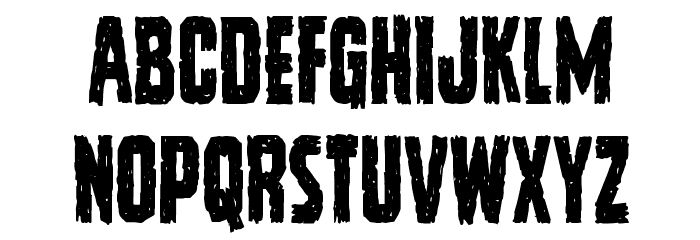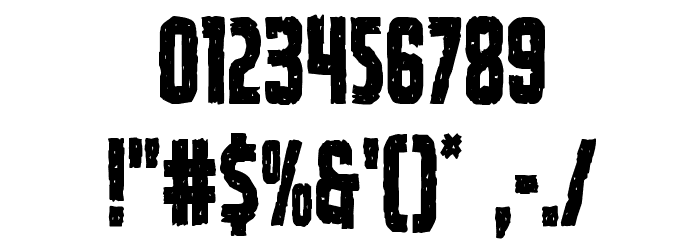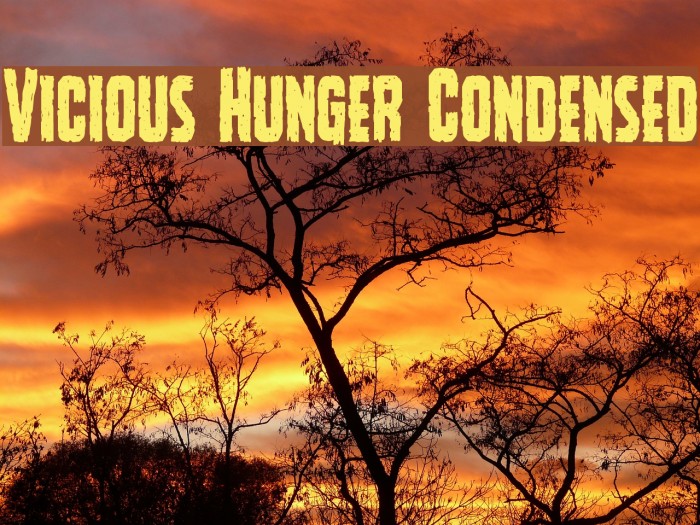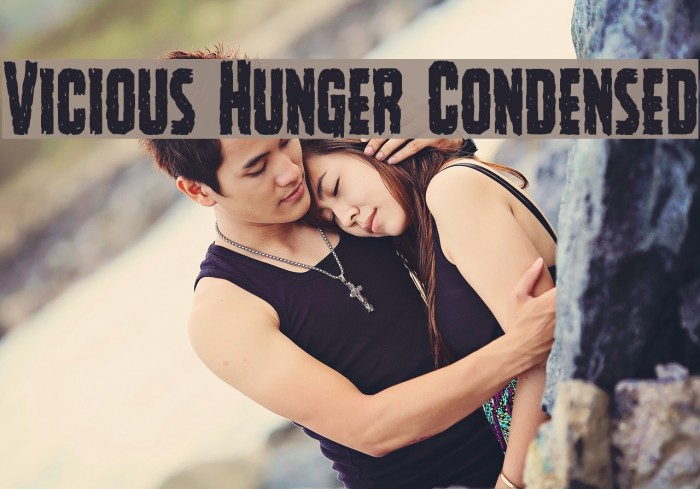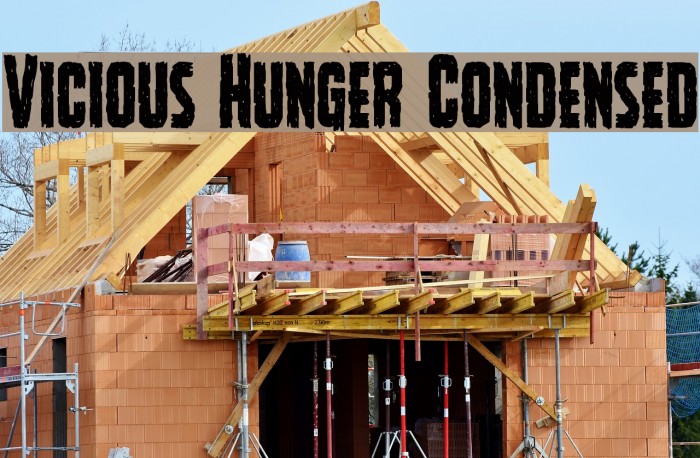
Vicious Hunger Condensed Font
This font features a bold and rugged design, characterized by its distressed and textured appearance. The letters have a condensed form, giving them a compact and impactful look. The rough edges and uneven strokes contribute to a gritty, hand-crafted feel, making it ideal for projects that require a raw and edgy aesthetic. The uppercase and lowercase letters maintain a consistent style, with numerals and special characters following suit. This font's unique style makes it stand out, perfect for attention-grabbing headlines or creative designs.
A bold, distressed, and condensed font with a rugged, textured appearance.
- Proposed Projects: Ideal for posters, album covers, branding for edgy products, and any design needing a bold, gritty look.
- Character Spacing: Tight